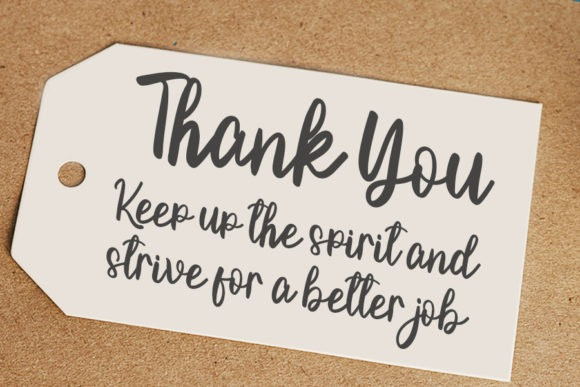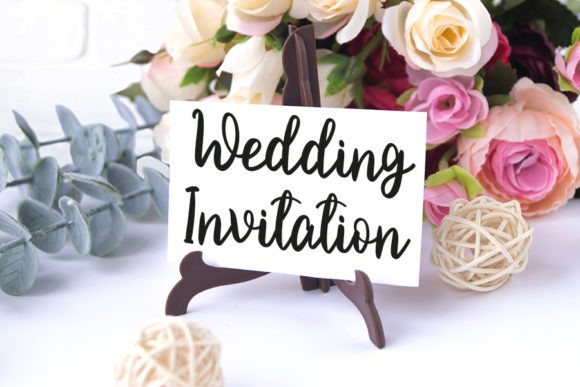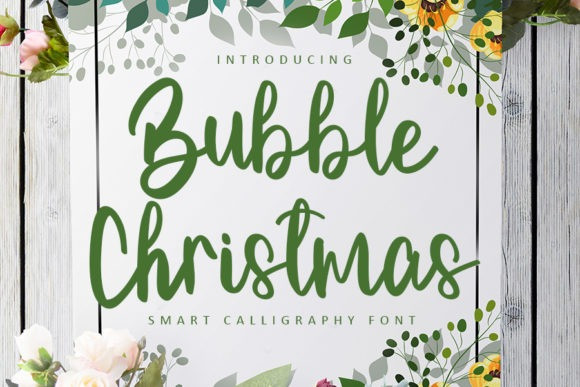
Bubble Christmas Font
Bubble Christmas Font is a romantic and sweet calligraphy typeface with characters that dance along the baseline. It looks beautiful on a variety of designs requiring a personalized style, such as wedding invitations, thank you cards, weddings, greeting cards, logos and so on.